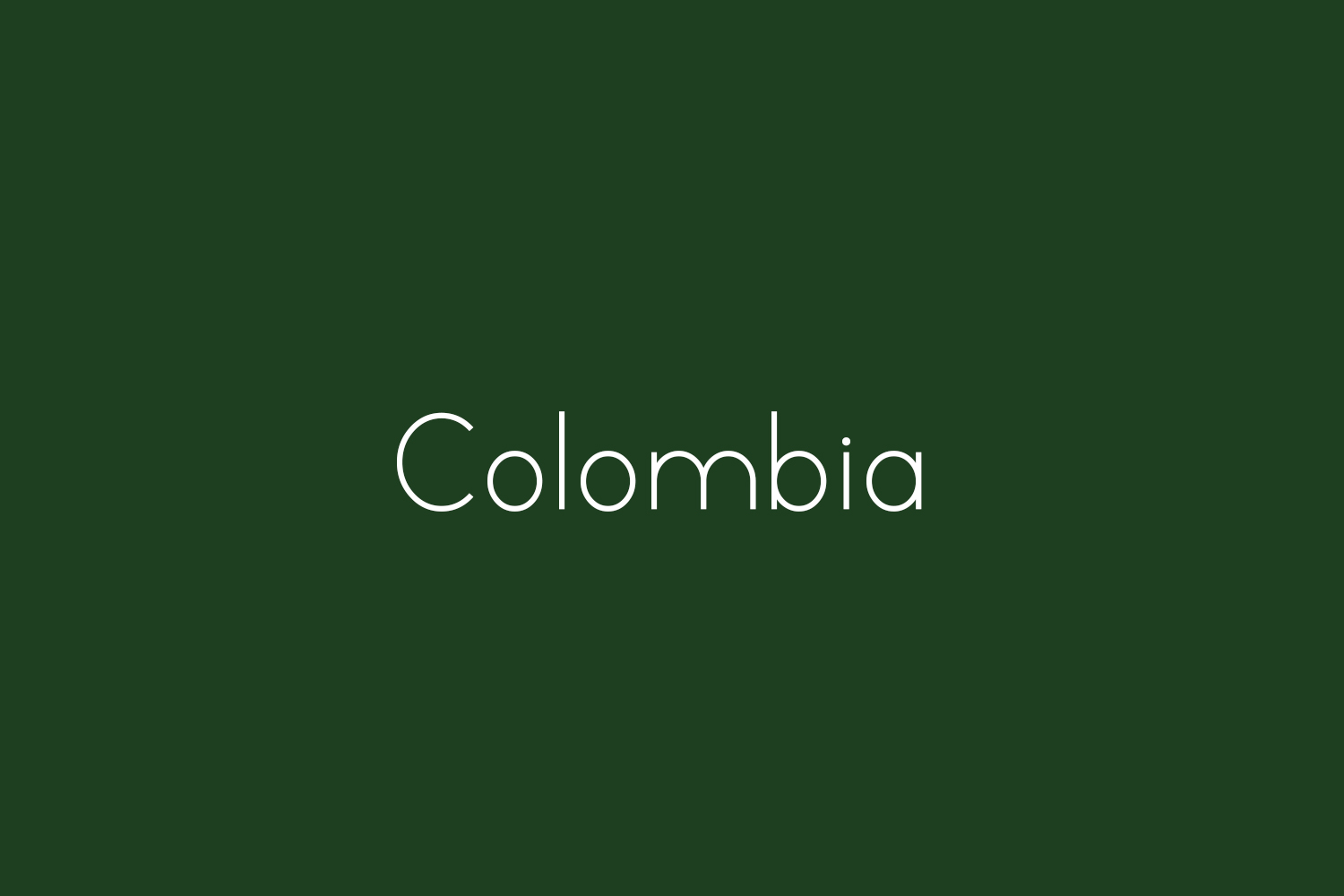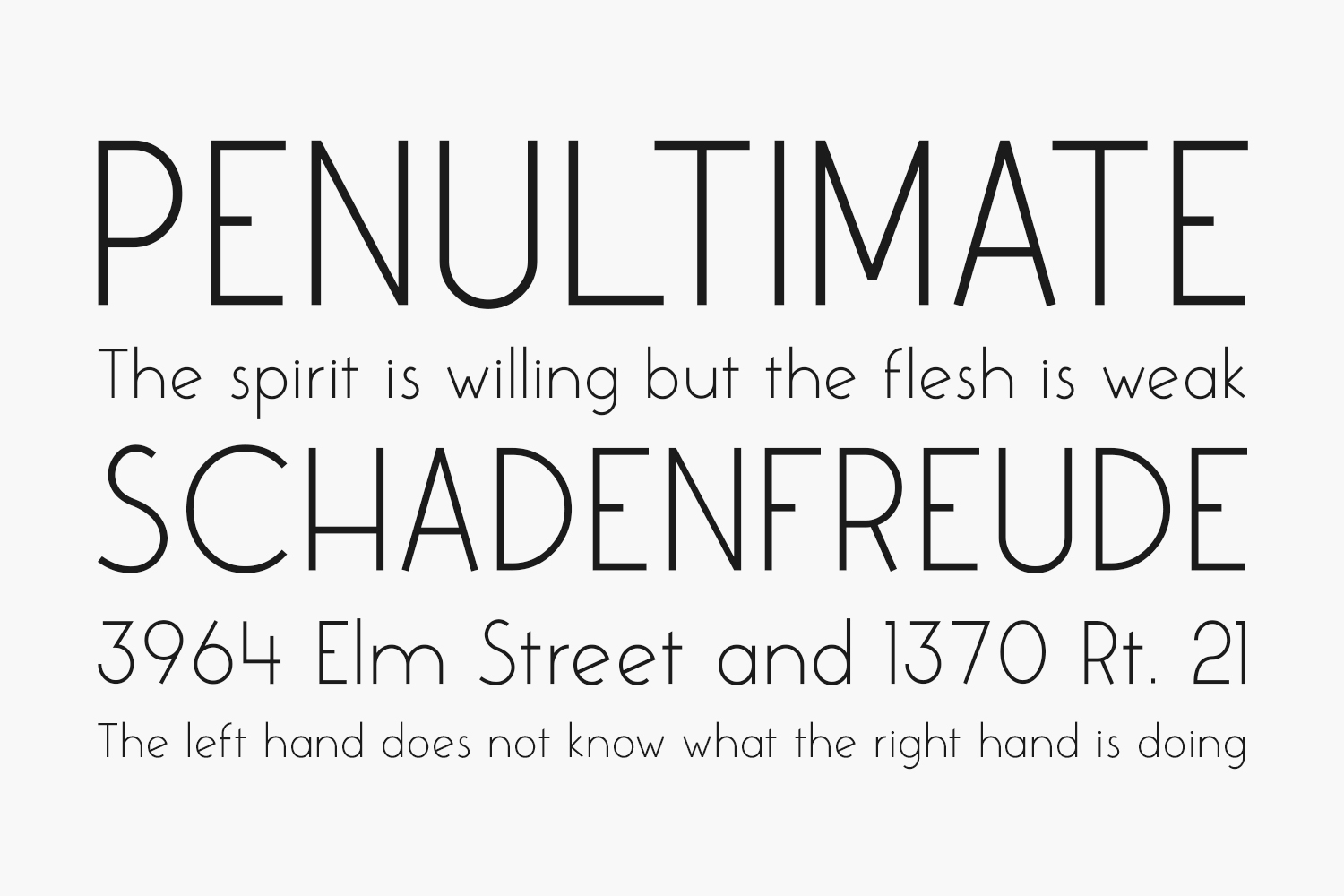
Colombia Free Font Family is a simple, elegant san serif font that fits with any kind of your design. This font is free for personal use only. Please purchase the full version for commercial use.
Designed by Sandylukee